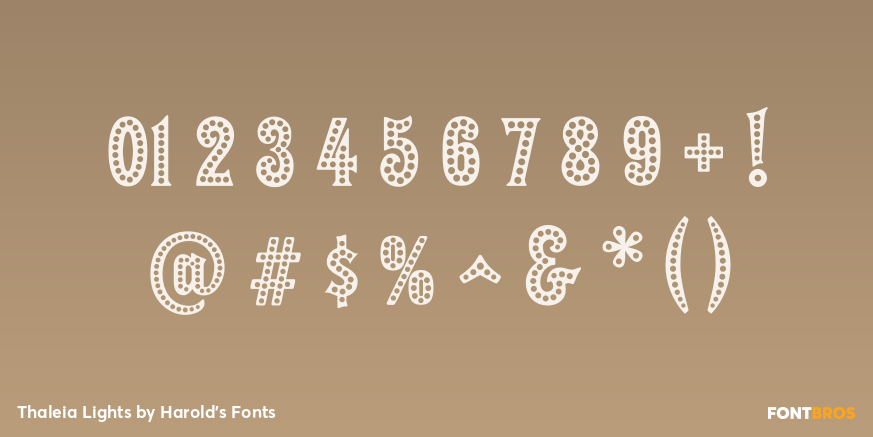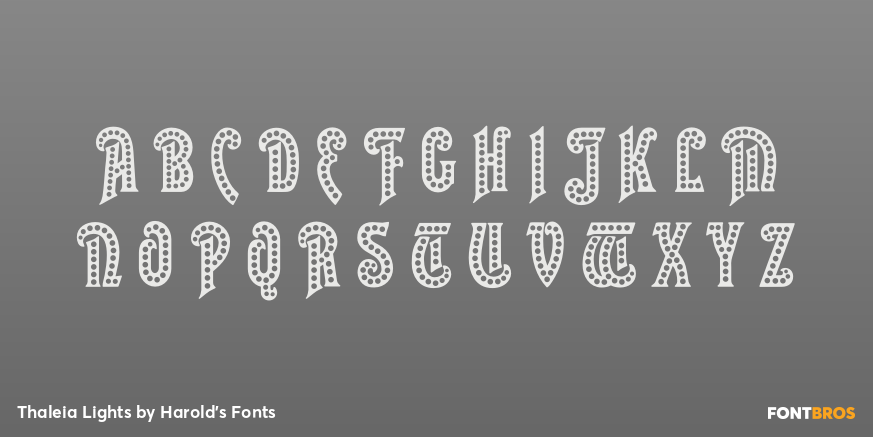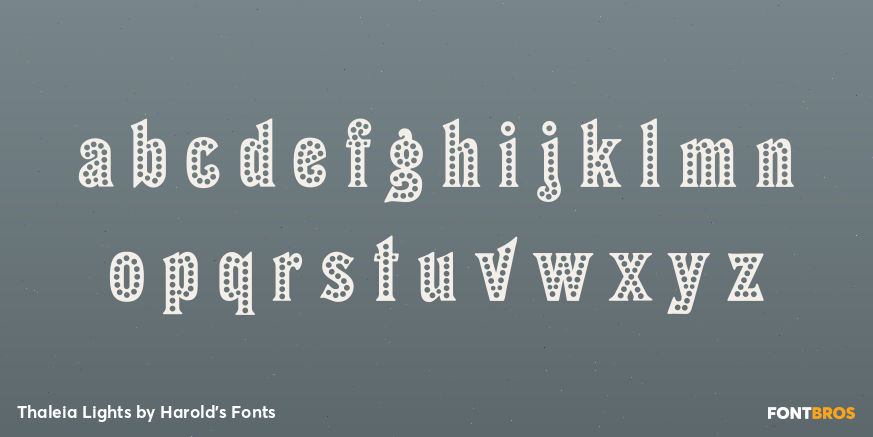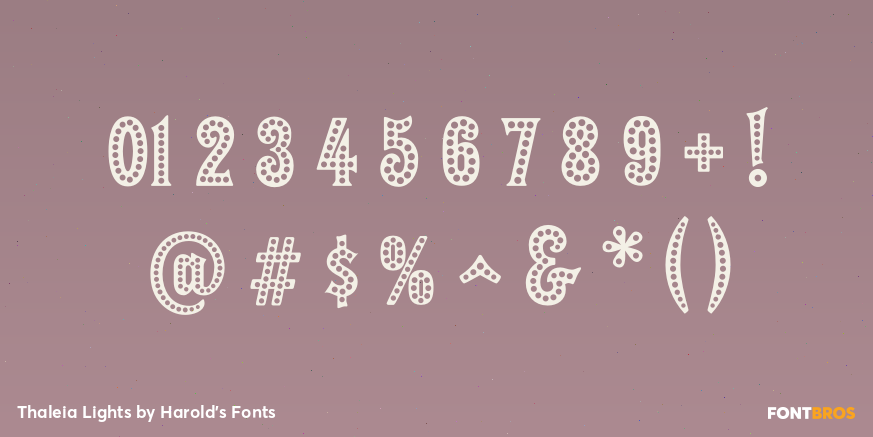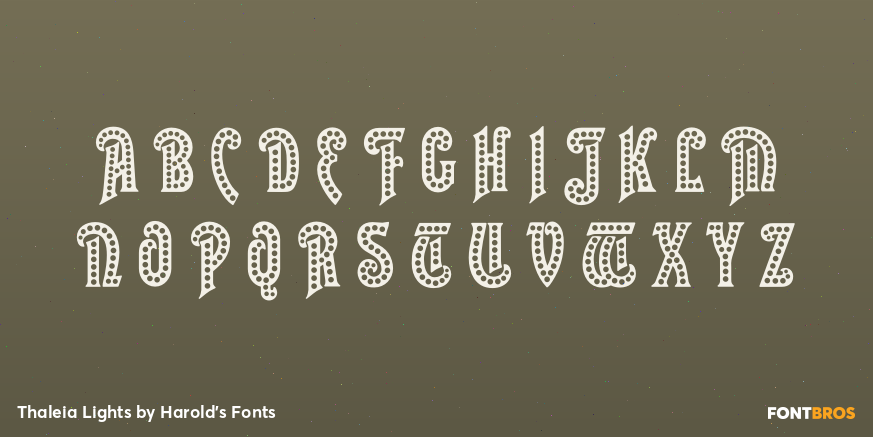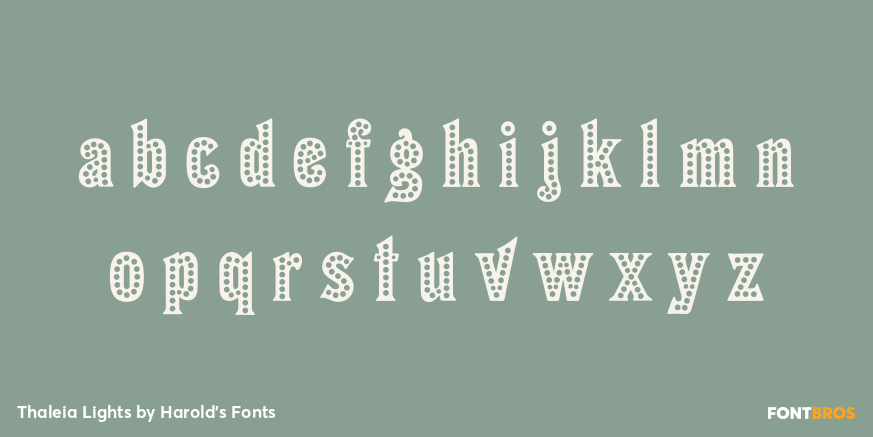
Thaleia Lights
Font Style by Harold's Fonts
THALEIA is a bold and curvy font, suggestive of both the 1920s and the 1970s. This is my digital interpretation of an analog design, commissioned by a client who could no long find the original in a usable form. The new THALEIA LIGHTS font has is set with white dots, suggesting an old music hall marquee.
Version 1.6 includes an expanded character set, improved spacing and kerning.